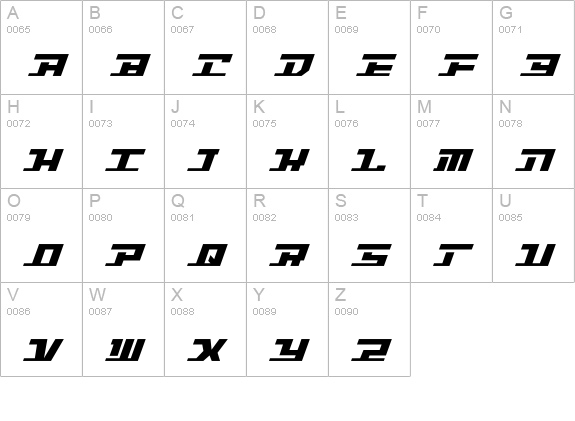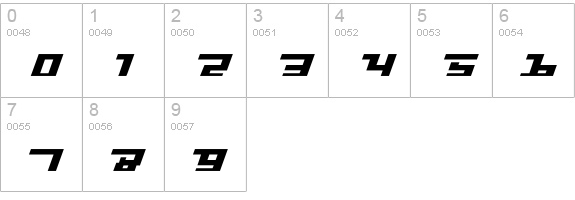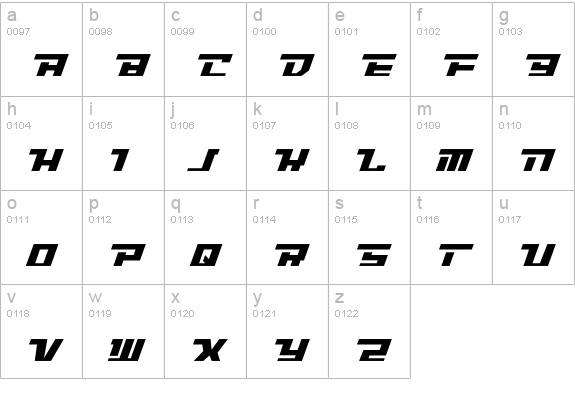
Intrepid Font Details
Intrepid font is a captivating typeface that exudes a sense of adventure and boldness. Its strong and confident letterforms make it the perfect choice for projects that require a touch of audacity and determination. With its distinct character and daring design, Intrepid font captures attention and leaves a lasting impression. What sets Intrepid font apart is not only its unique aesthetics but also its accessibility. This remarkable typeface is available for free download at FontsMarket.com, making it easily accessible to designers, creatives, and enthusiasts alike. Its availability as a free font allows for unrestricted usage, empowering individuals to unleash their creativity without any limitations. The versatility of Intrepid font further enhances its appeal. Whether it is used for a logo, headline, or body text, this font effortlessly adapts to various design contexts. Its clean lines and sharp edges ensure legibility even at smaller sizes, while its bold presence commands attention in larger formats. Intrepid font's extensive character set includes uppercase and lowercase letters, numerals, punctuation marks, and a range of special characters. This comprehensive collection allows designers to craft captivating compositions, conveying their message with clarity and impact. With Intrepid font, designers can embark on a typographic journey like no other. Its free availability at FontsMarket.com invites creative individuals to explore and experiment, pushing the boundaries of design and unleashing their imagination. So, download the Intrepid font today and let your creativity soar to new heights.